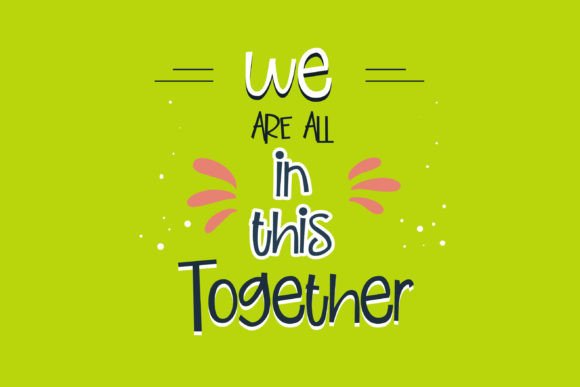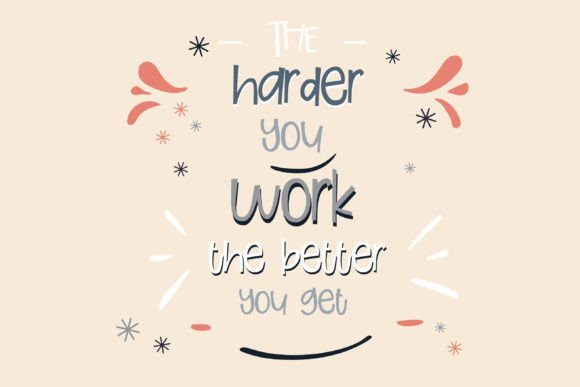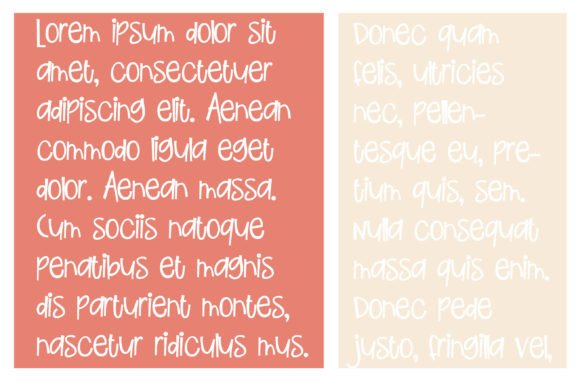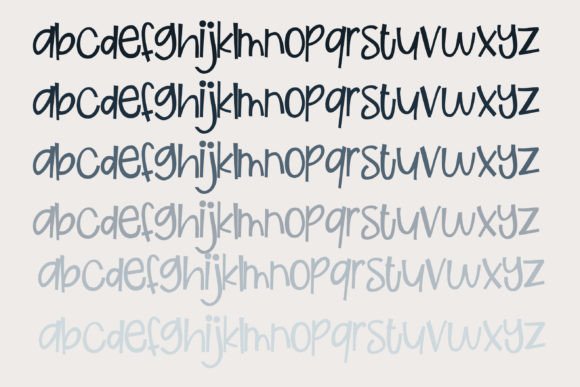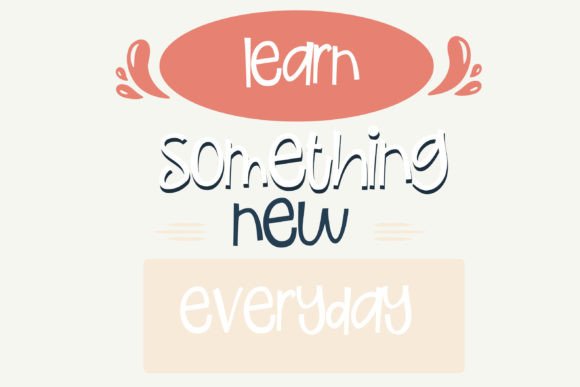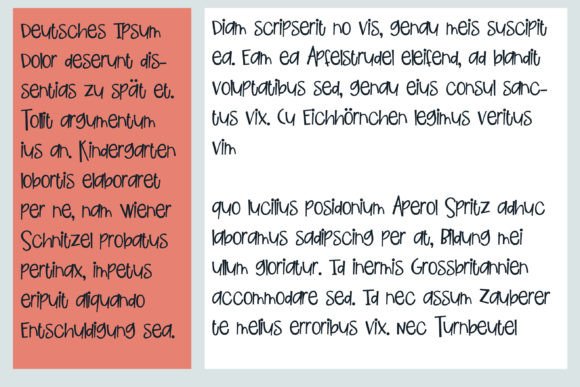
Cowcatching Font: The Perfect Addition to Your Design Projects
Are you looking for a font that can add a touch of youthfulness and whimsy to your design projects? Look no further than the Cowcatching Font! This hand-written sans serif font is perfect for a wide spectrum of applications, from greeting cards to headlines, and many more. In this article, we’ll take a closer look at the Cowcatching Font, its features, and how you can use it to elevate your designs.
What is Cowcatching Font?
Cowcatching Font is a hand-written sans serif font that exudes a sense of playfulness and fun. Its unique and quirky design makes it perfect for designers and crafters who want to add a personal touch to their projects. The font is versatile and can be used for a variety of applications, including greeting cards, headlines, posters, and more.
Features of Cowcatching Font
The Cowcatching Font has several features that make it stand out from other fonts. Some of its key features include:
- Hand-written sans serif design: The font has a unique, hand-written design that gives it a personal and quirky feel.
- Youthful and whimsical: The font’s playful design makes it perfect for projects that require a youthful and whimsical touch.
- Versatile: The font can be used for a wide range of applications, from greeting cards to headlines.
- Easy to read: Despite its quirky design, the font is easy to read and understand.
Uses of Cowcatching Font
The Cowcatching Font is perfect for a wide range of design projects, including:
- Greeting cards: Add a personal touch to your greeting cards with the Cowcatching Font.
- Headlines: Use the font to create eye-catching headlines for your blog posts, articles, or social media posts.
- Posters: The font is perfect for creating posters for events, promotions, or advertisements.
- Social media graphics: Use the font to create engaging social media graphics that will grab the attention of your followers.
- Crafting projects: The font is perfect for crafters who want to add a personal touch to their projects, such as scrapbooking, journaling, or card making.
Why Choose Cowcatching Font?
There are many reasons why you should choose the Cowcatching Font for your design projects. Here are a few:
- Unique design: The font has a unique and quirky design that will set your projects apart from others.
- Versatile: The font can be used for a wide range of applications, making it a great addition to your font library.
- High-quality: The font is high-quality and will look great in your projects, whether you’re printing them or displaying them online.